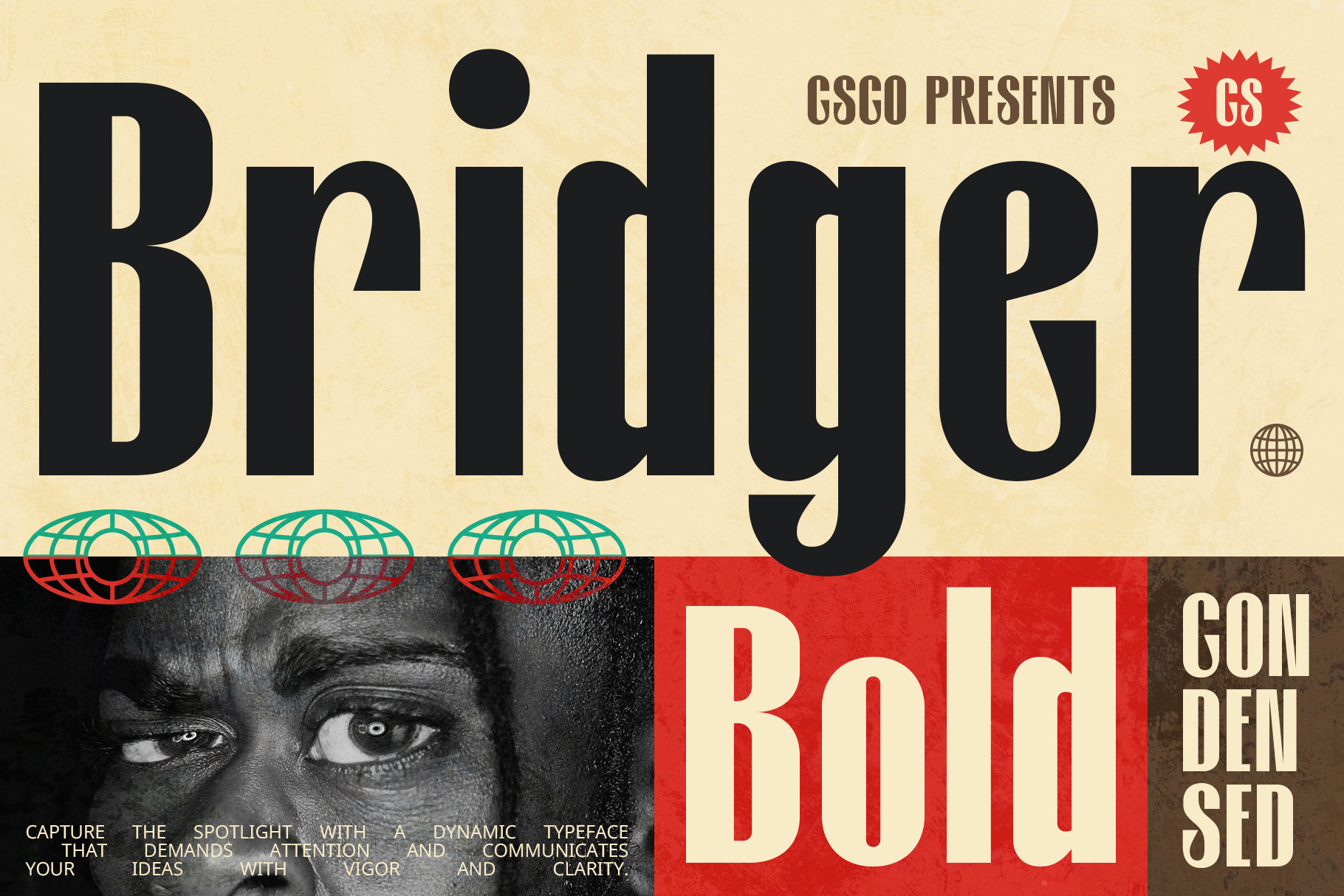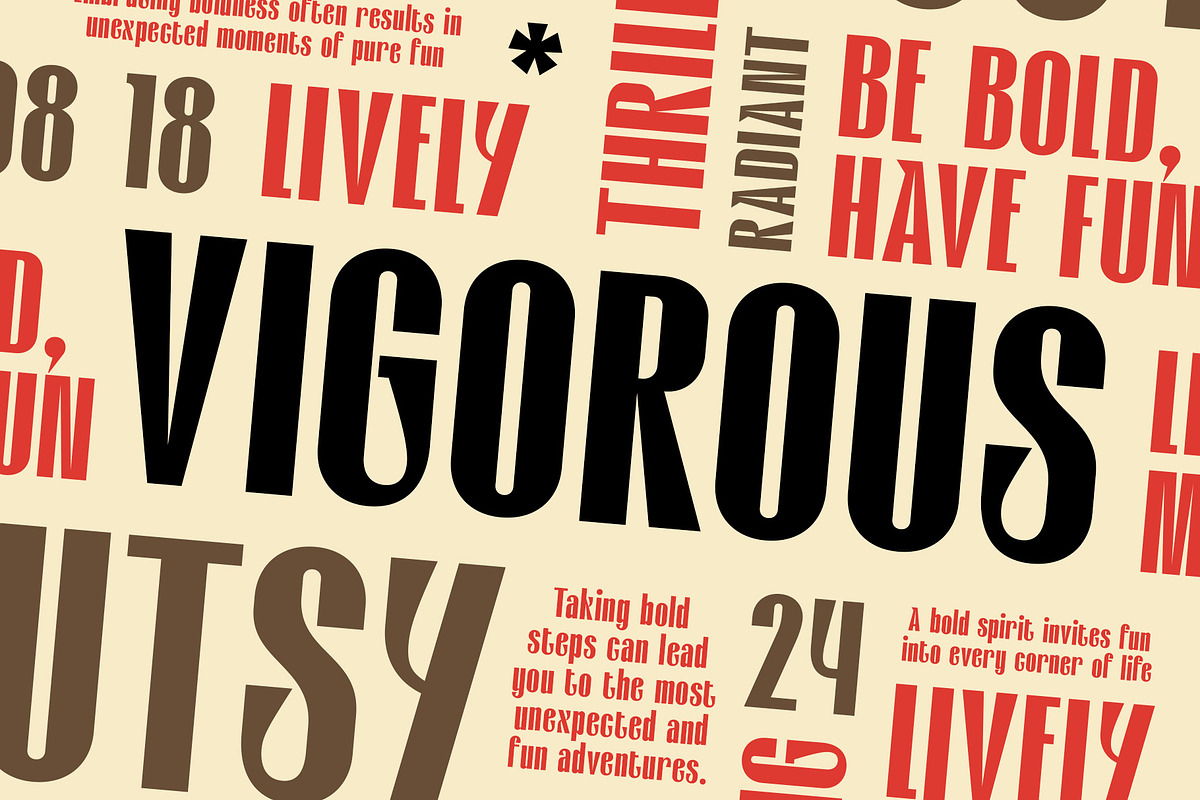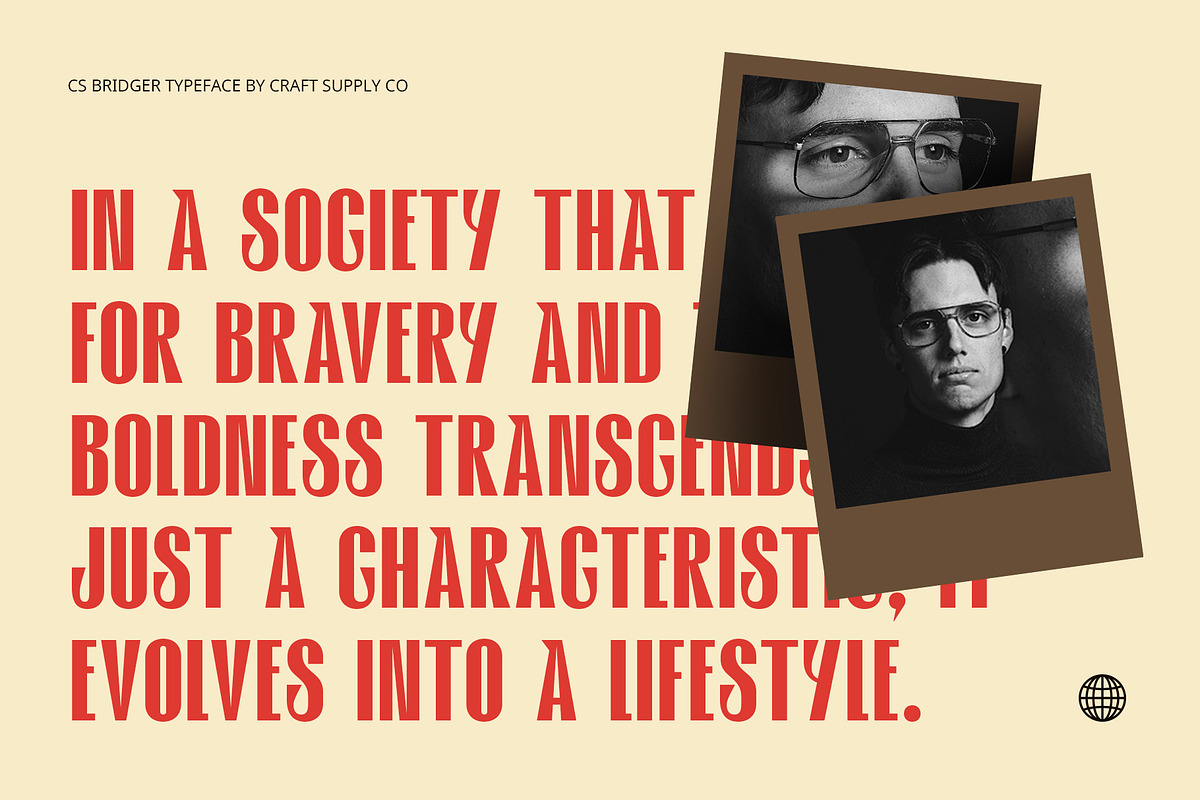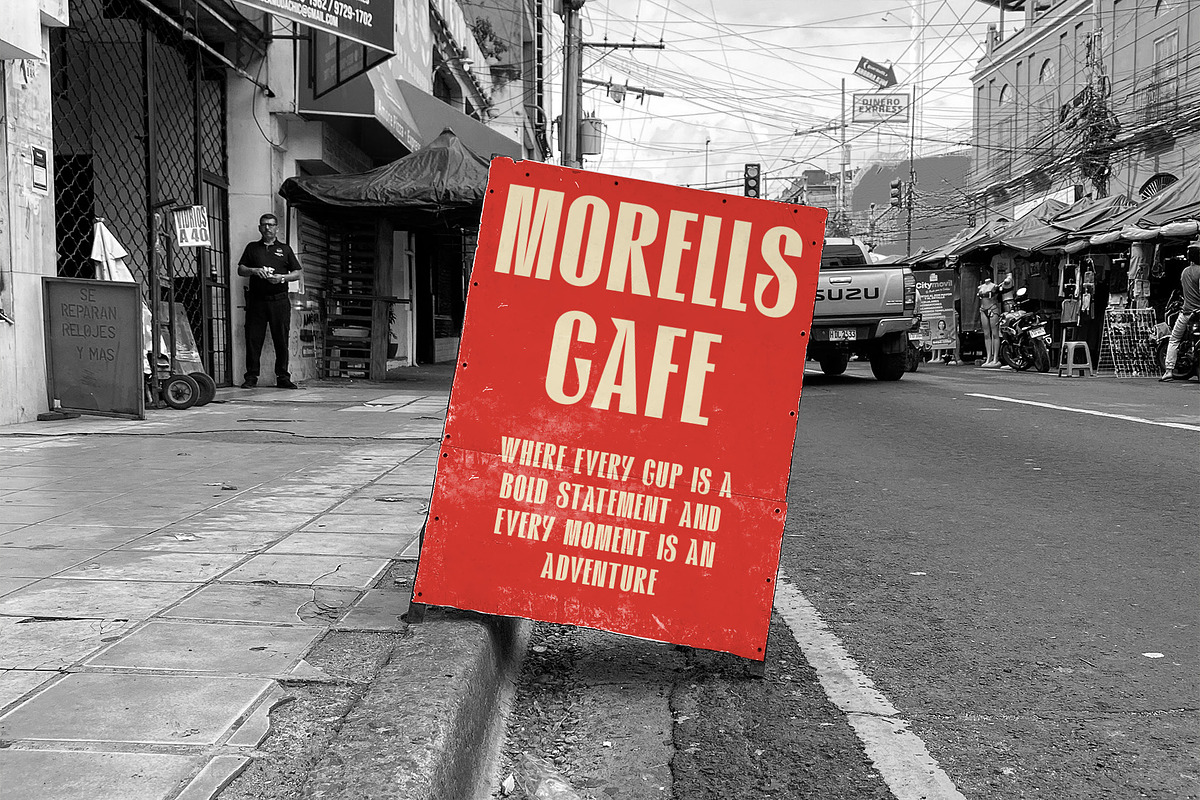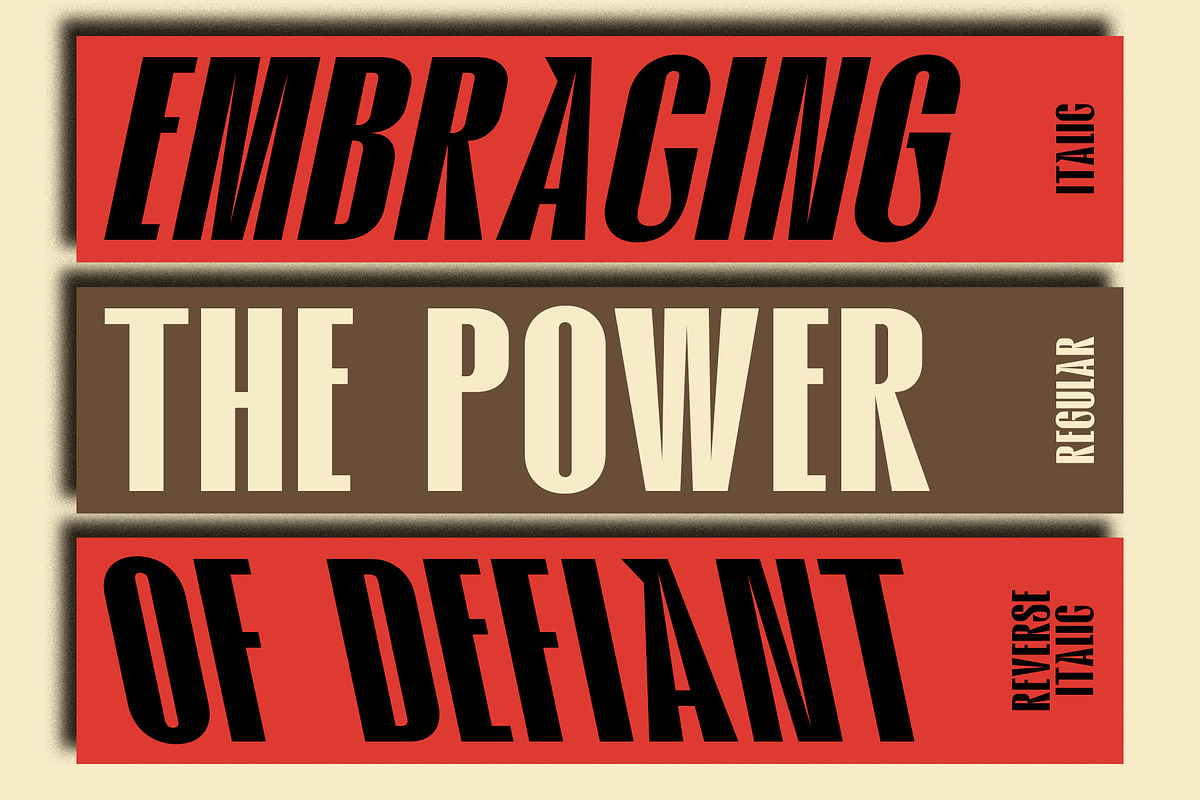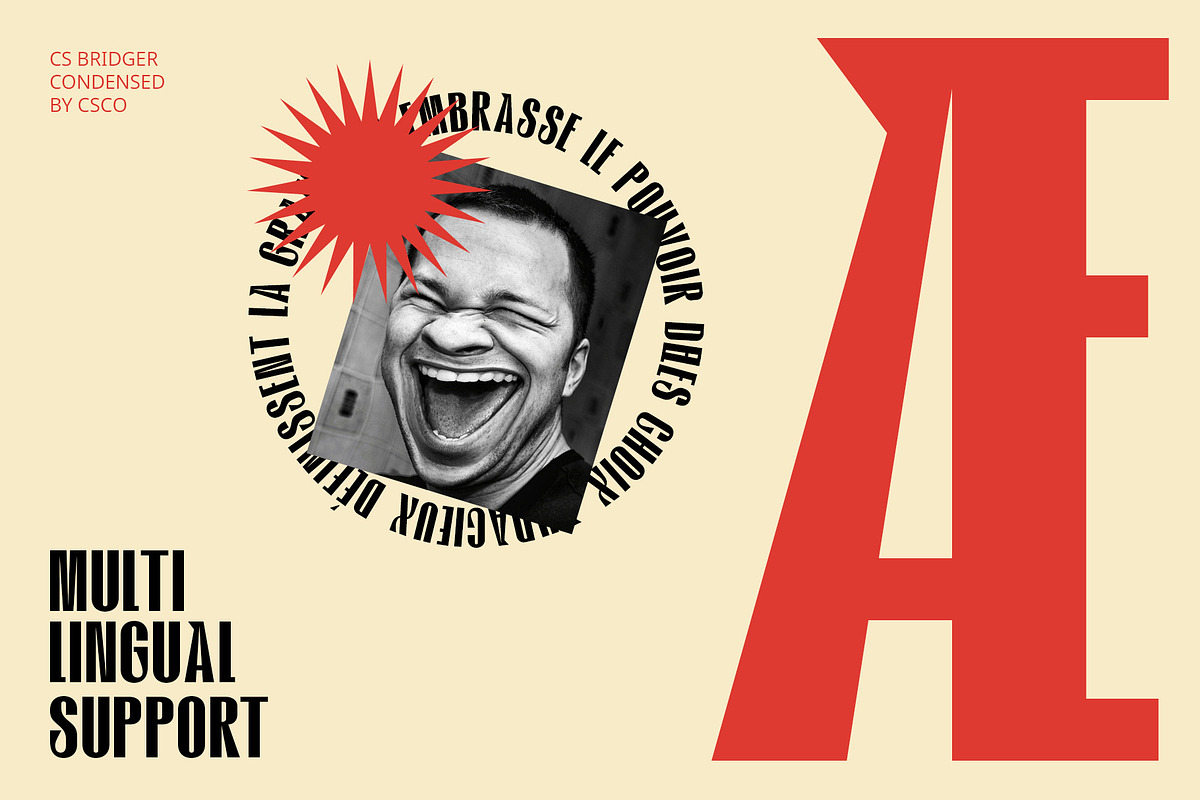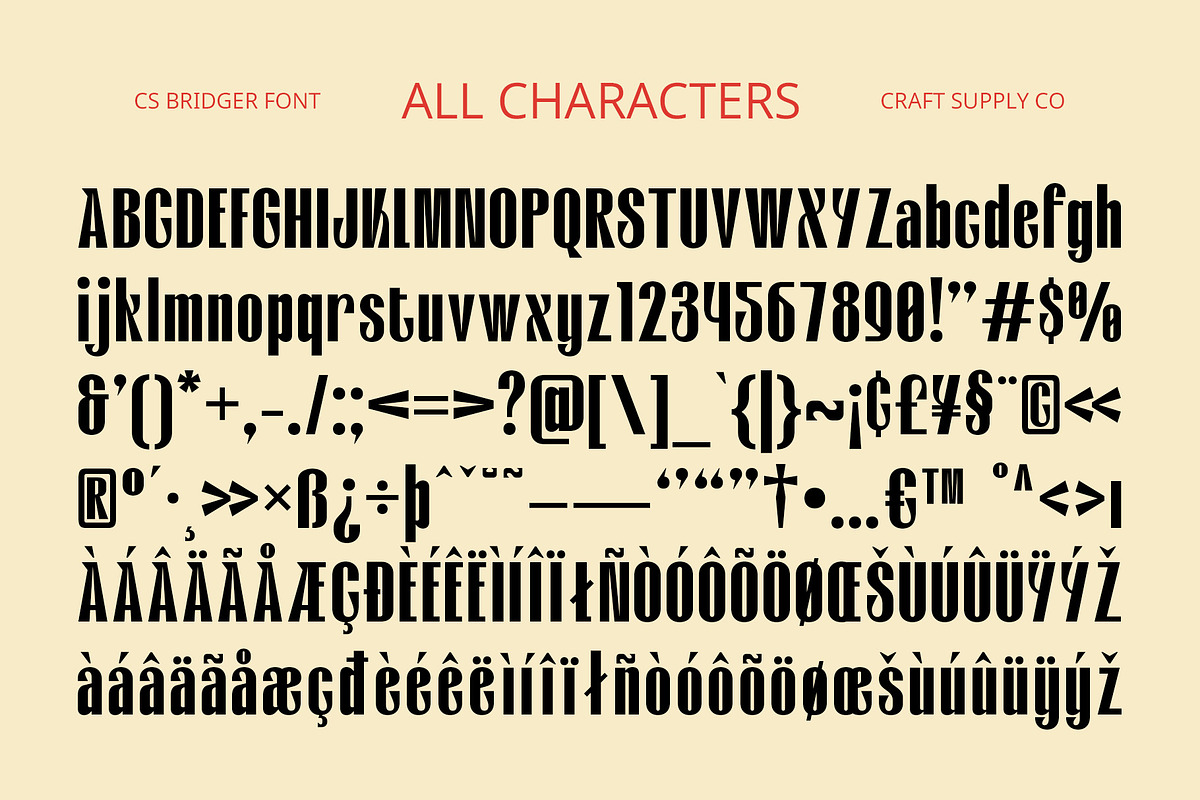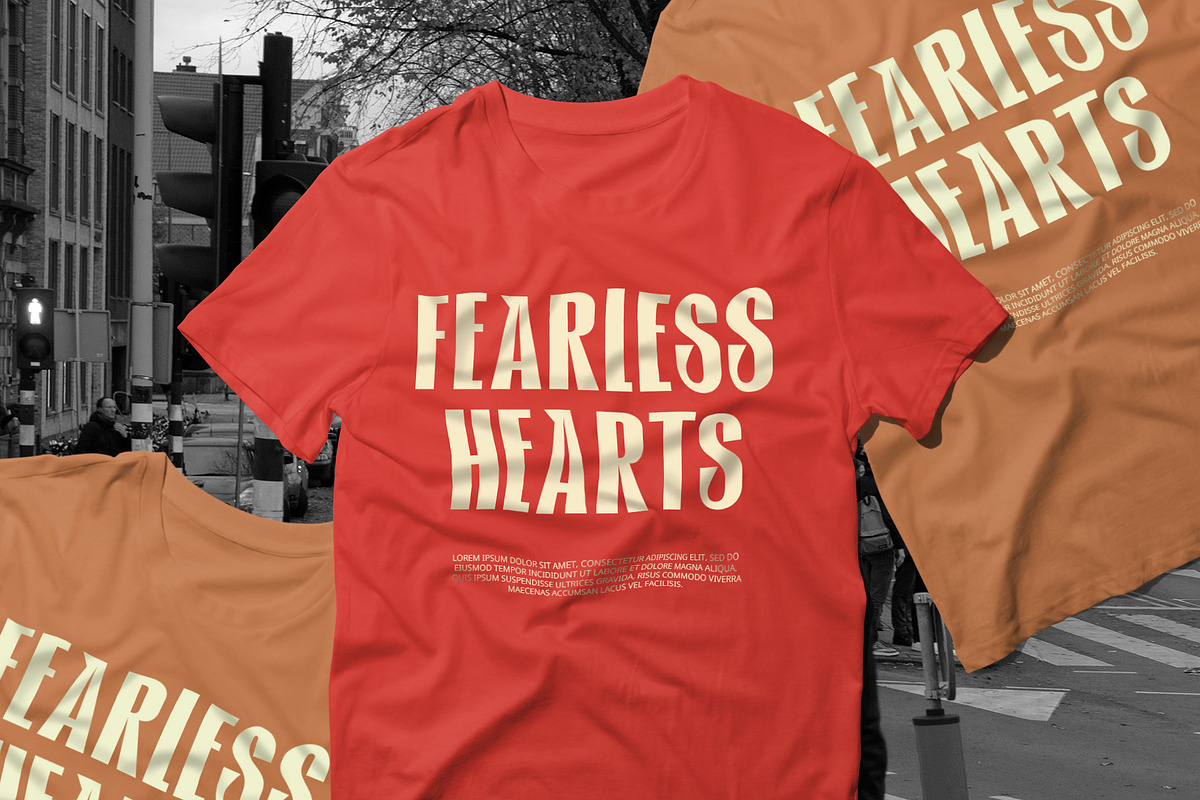
CS Bridger – Bold Font
CS Bridger – Bold Sans-Serif Font
Strong and Assertive Design CS Bridger is a modern sans-serif font distinguished by its bold and condensed forms, creating a visually striking and assertive appearance. The font’s strong lines and compact design project confidence and efficiency, making it an excellent choice for any project that demands a commanding presence. Its ability to stand out while remaining clear and legible ensures that it makes a significant impact in various design contexts.
Efficient and Professional Appeal The sleek, condensed structure of CS Bridger enhances its professional and authoritative look. Its efficient use of space allows for more content to fit within smaller areas without sacrificing readability. This design feature makes it highly effective for space-saving applications, such as headlines, posters, and branding materials, where a clean, organized appearance is crucial. The font’s modern aesthetic and straightforward style contribute to a sophisticated and polished impression.
Versatile for Various Applications CS Bridger excels in a wide range of design projects, from attention-grabbing headlines and dynamic posters to impactful branding and editorial design. Its bold, condensed form ensures that it captures attention and maintains visual clarity, making it perfect for projects that require a strong and modern look. Whether you’re designing for print or digital media, CS Bridger offers versatility and a powerful visual statement, making it an invaluable asset for any creative endeavor.
- CS Bridger Regular
- CS Bridger Italic
- CS Bridger Reverse Italic